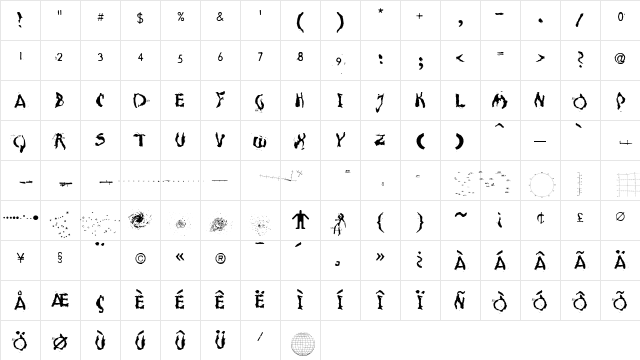
Moonscape A Free Font
Moonscape A
Style: A
Design Context for Moonscape
Moonscape is a composed and adaptable typeface that performs quietly and consistently across a wide range of design contexts.